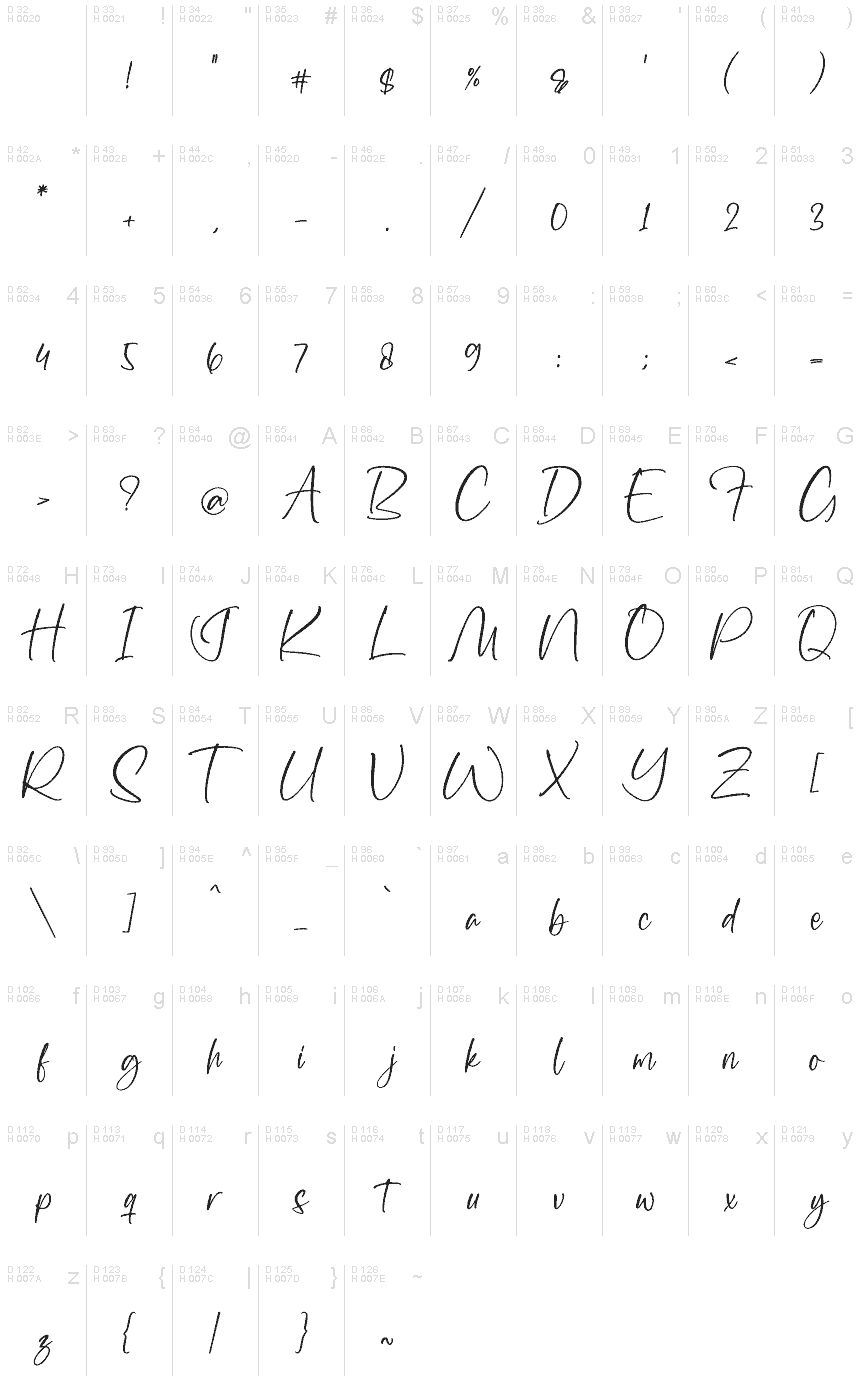
Wheslings
With handwritten fonts, you can create inviting branding elements, charming labels, romantic postcards, beautiful wedding cards, lovely logo designs, elegant invitation designs, and many other print and digital projects. Wheslings is a delightful script font available in light style with stylish calligraphy-like strokes. If you take a look at the font example, you’ll notice the natural and elegant style of its lowercase letters. Wheslings was created by Letterena for Perspectype Studio, and you can use it in personal and commercial projects.
To provide your readers with a useful, eye-catching presentation, write a font description that takes advantage of Wheslings’ features and style. This will enable visitors to effectively visualize the font in other projects and highlight its uniqueness. Use Wheslings for your next logo design or signature. It can also be used as a decorative headline or a body text font for wedding cards and invitations. You can create amazing postcards for Valentine’s day with Wheslings and customize your print projects.